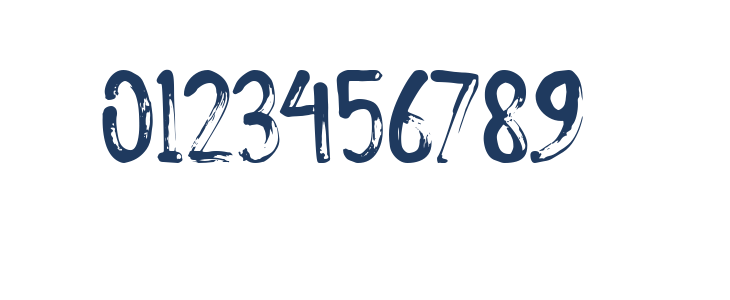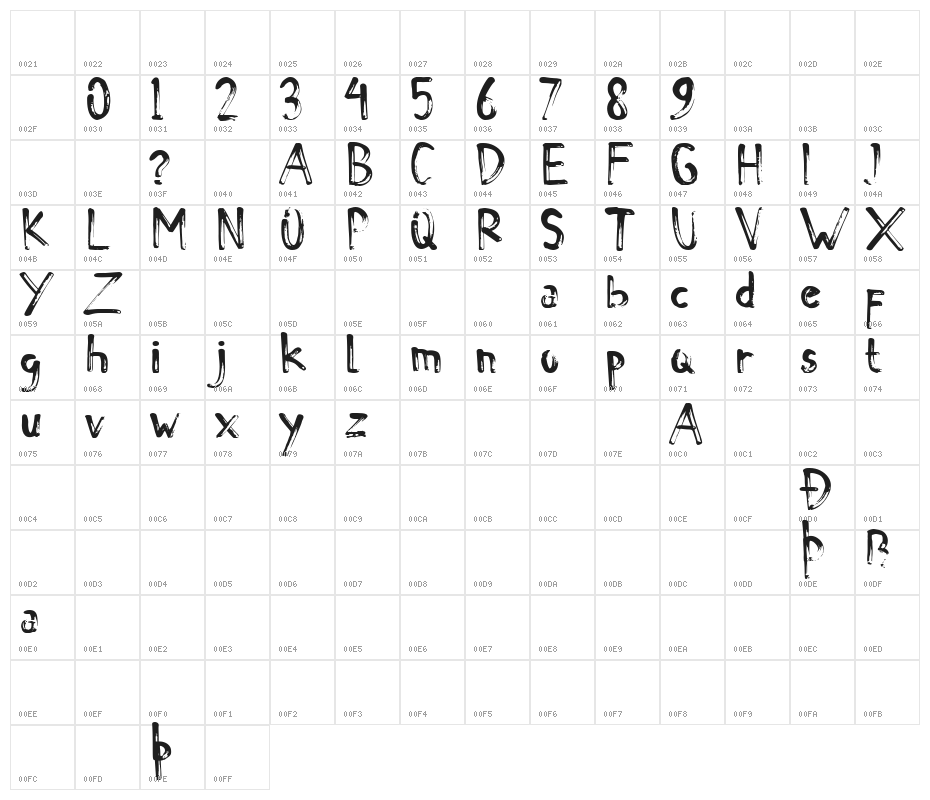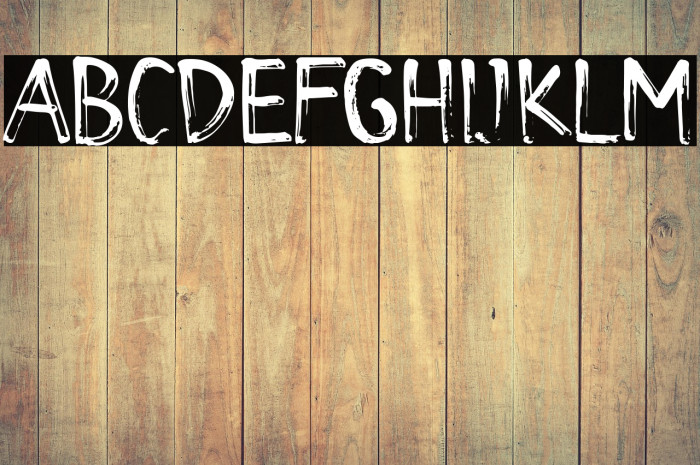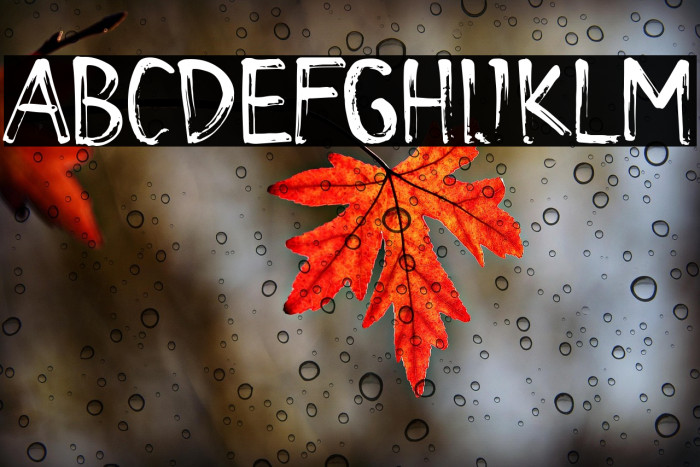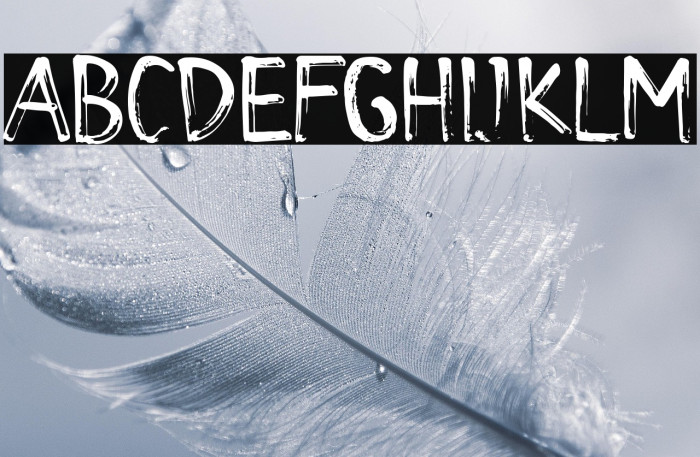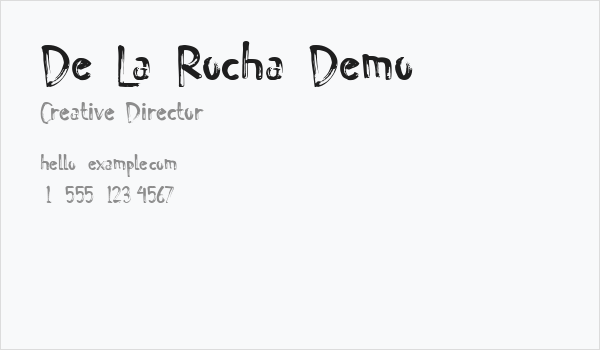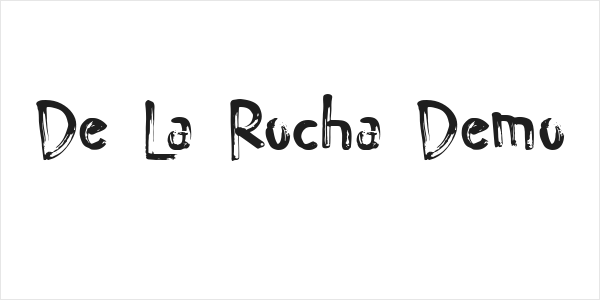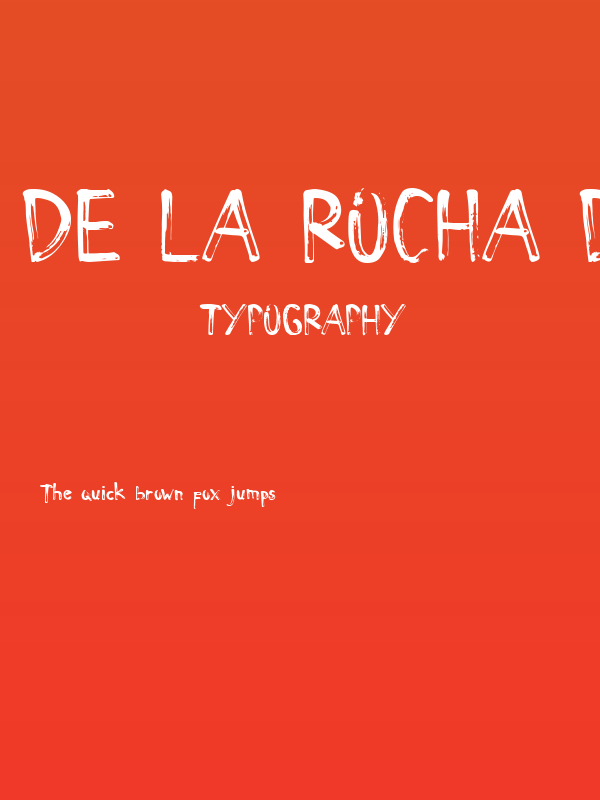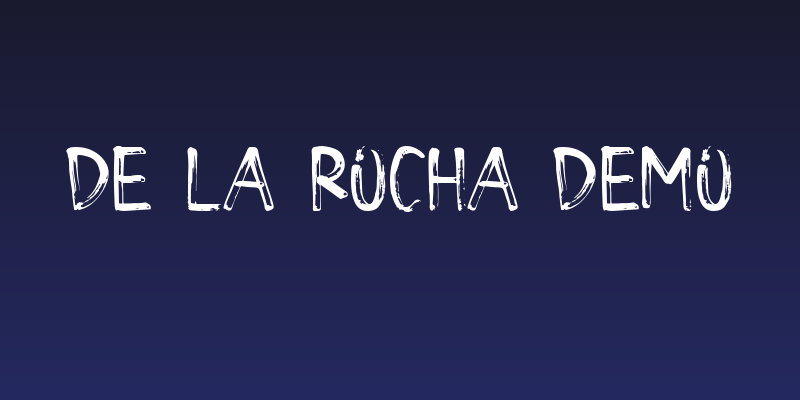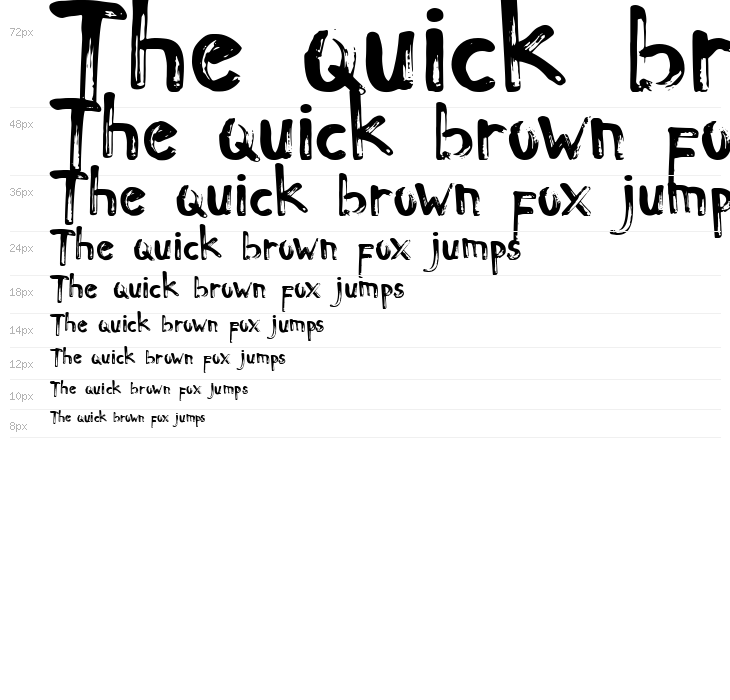
De La Rocha Demo Font
De La Rocha Demo Description
This font features a bold and expressive brush style, characterized by its dynamic and energetic strokes. The letters appear hand-painted, with varying thickness and a slightly distressed texture that adds a raw, artistic feel. The uppercase and lowercase letters maintain a consistent style, with some letters exhibiting unique flourishes and curves. The numbers follow the same expressive design, ensuring a cohesive look across all characters. This font's distinctive appearance makes it ideal for projects that require a bold and creative touch.
| Overall Style | Artistic, Expressive |
| Use Case | Headlines, Posters, Branding |
| Proposed Projects | Ideal for artistic projects, album covers, posters, branding, and any design requiring a bold, creative flair. |